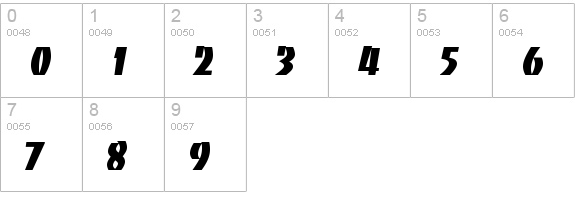
Banco font is a bold and modern typeface that exudes strength and confidence. With its sleek lines and geometric shapes, Banco font is perfect for making a statement in headlines, logos, and branding projects. This versatile font is free to use, making it accessible to designers and creatives looking to add a touch of sophistication to their work. You can easily download Banco font for free at FontsMarket.com, where you'll find a wide selection of high-quality fonts for all your design needs. Elevate your projects with Banco font and make a lasting impression with its unique style and versatility.